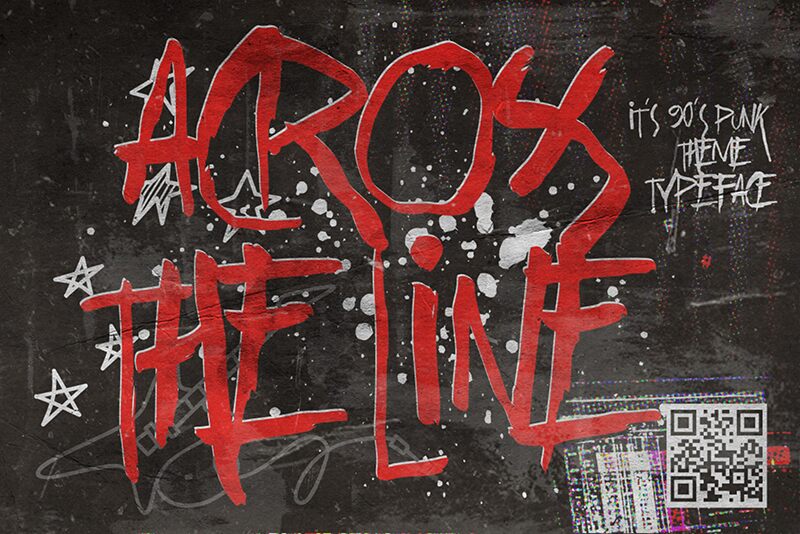
Looking for a bold and edgy script font that can make your designs stand out? Look no further than Across the Lines, a stunning typeface designed by Gassstype. With its semi-light weight and condensed width, this trash-style font is perfect for projects that require a touch of rebellion and attitude. Think album covers, streetwear logos, or even gritty movie posters. Across the Lines is versatile enough to use in a range of design projects where you want to add an element of daring style. So if you're ready to break all the rules and create something truly unique, give Across the Lines a try today!
Across the lines